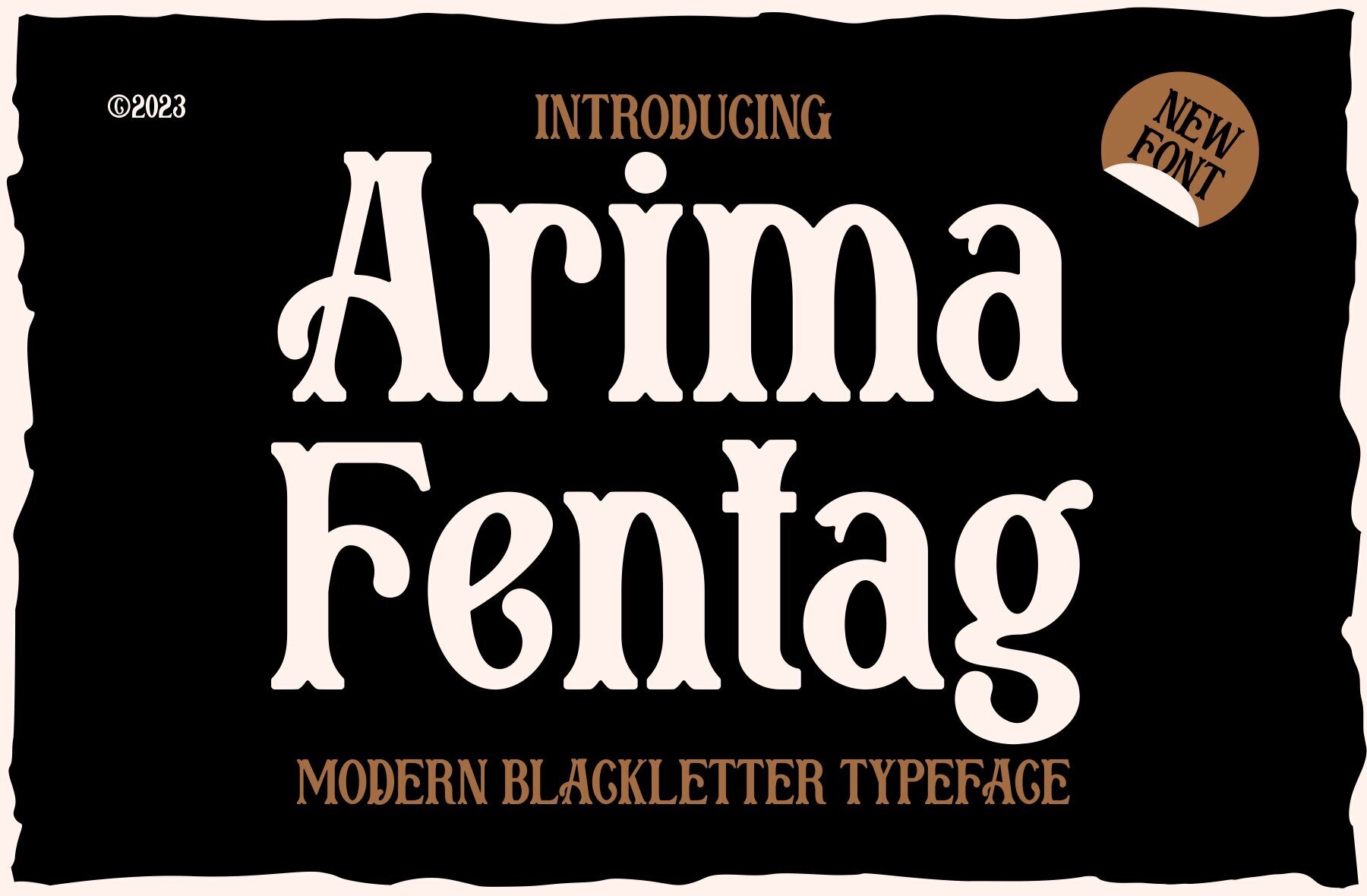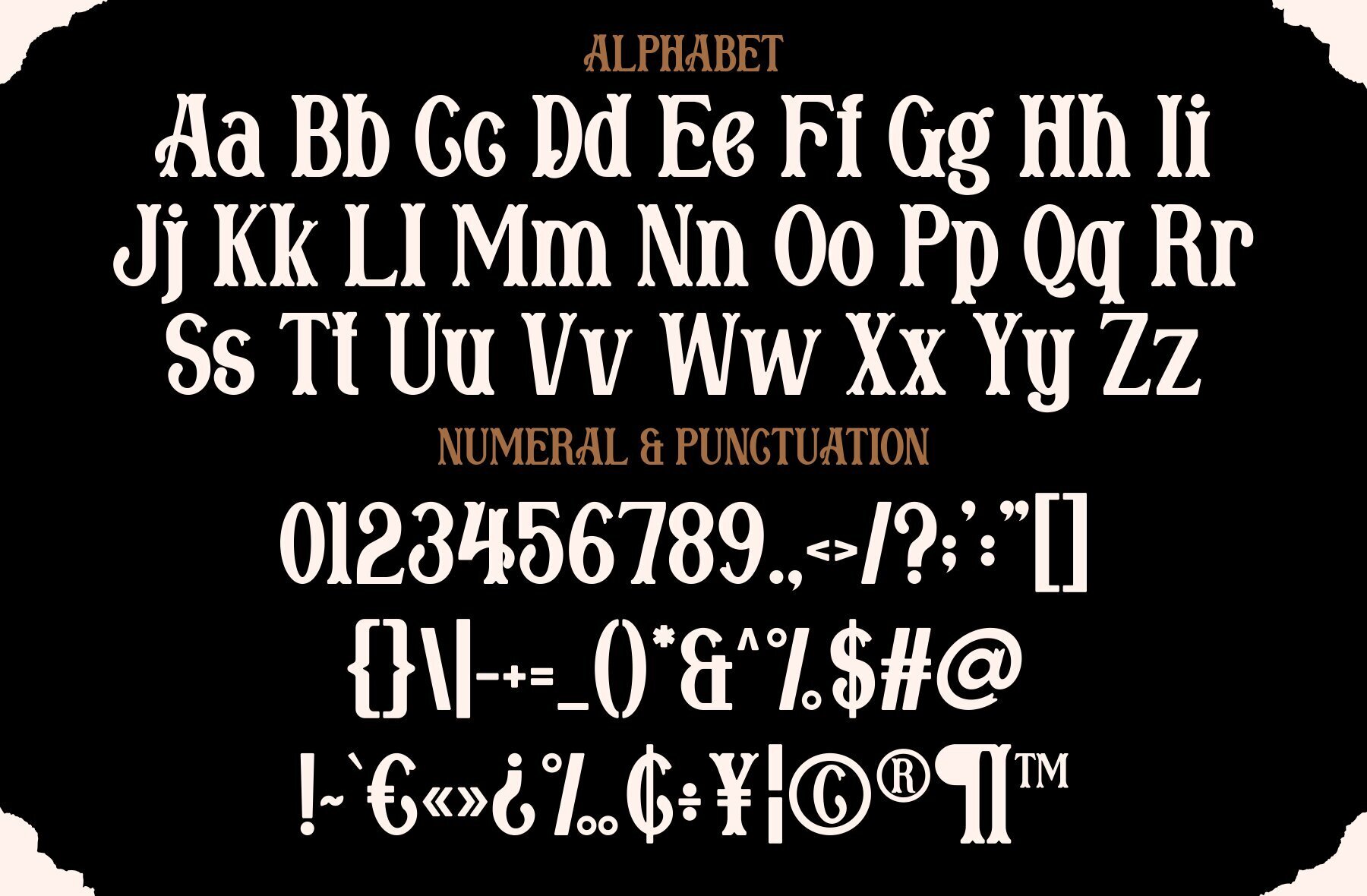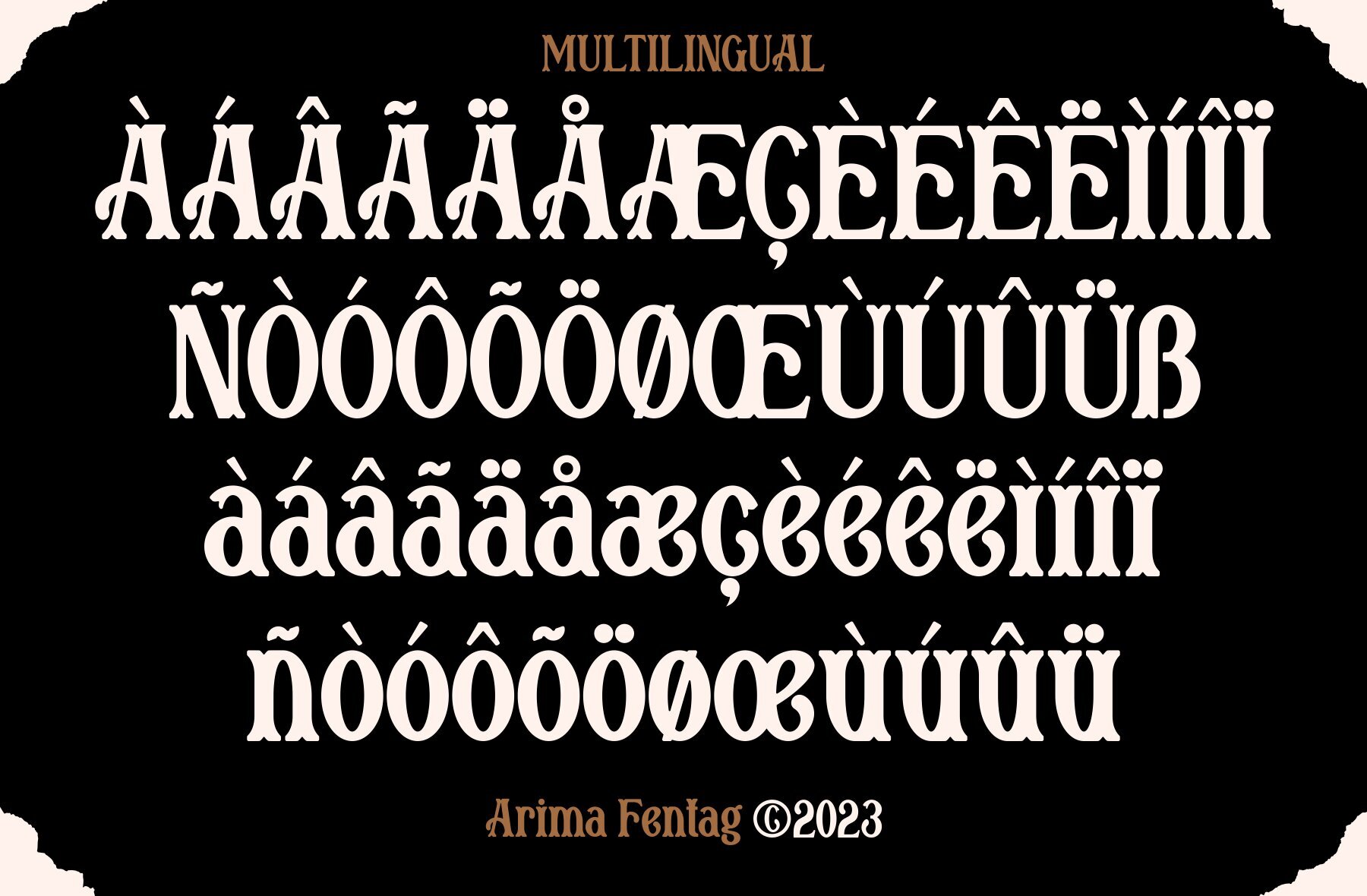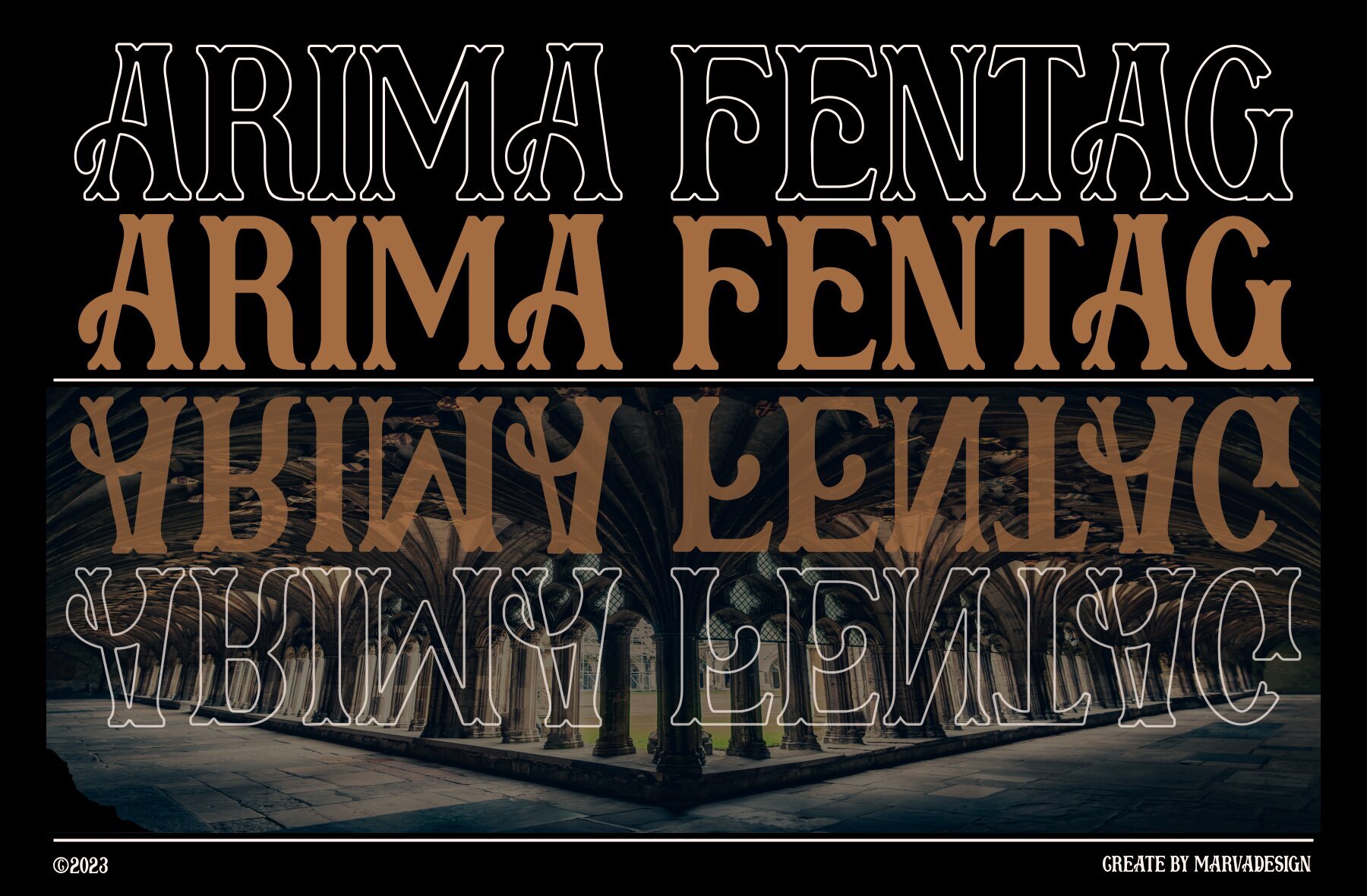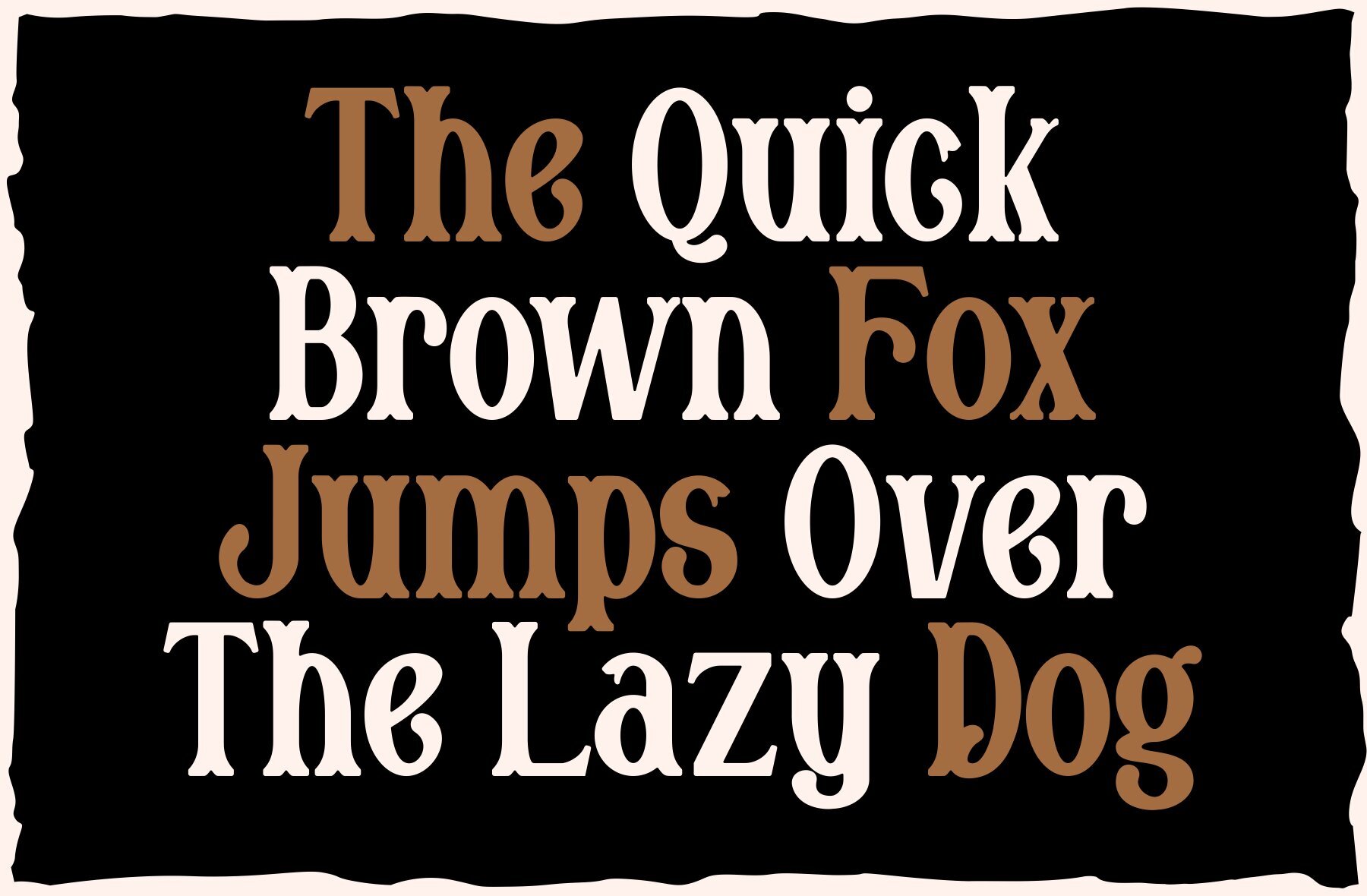
Arima Fentag Font
Arima Fentag
Arima Fentag is an authentic display font that brings a classic touch to your branding projects. Whether you're designing a logo, crafting a template, or working on product packaging, this distinctive font offers exceptional versatility and context suitability.Arima Fentag: Old Decorative Font for Versatile Designs